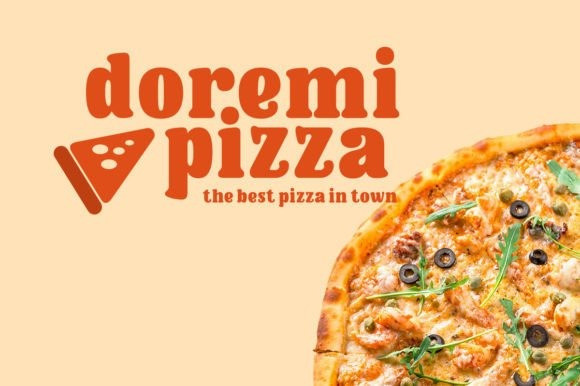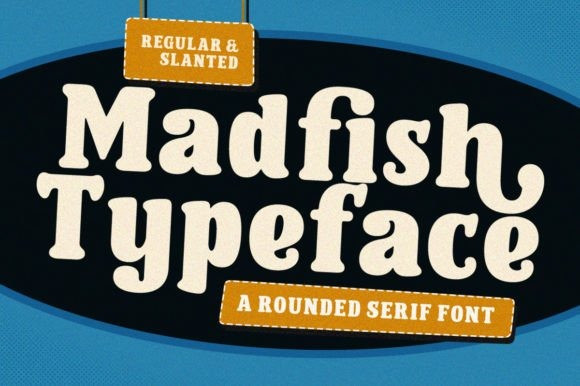
Medfish Typeface Font
Medfish Typeface Font is a stunning font with a unique combination of rounded serifs and bold strokes, giving it a playful yet sophisticated look. Inspired by vintage design, this font has a retro style that adds a touch of timeless elegance to any project.